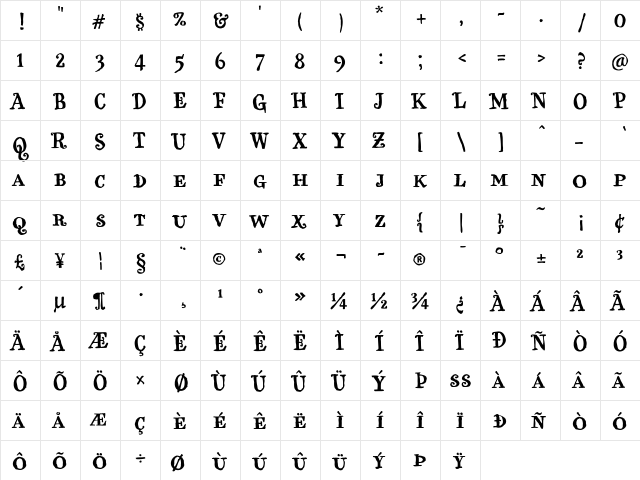
Olduvai Small Caps Regular
| Foundry | Aquatoad Design |
| Designer | Randy Jones |
Design Context for Olduvai Small Caps Typeface
Olduvai Small Caps is a composed and adaptable typeface that performs quietly and consistently across a wide range of design contexts.